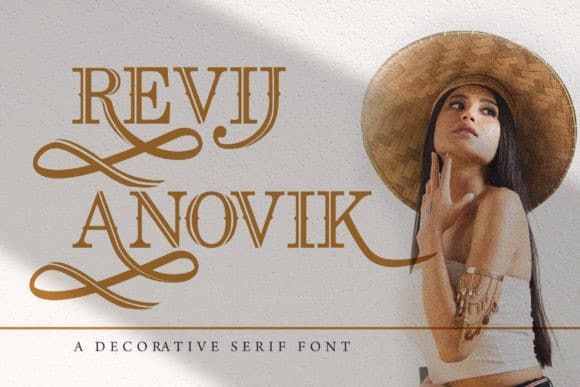
Revij Anovik Display Font
Revij Anovik Display Font is a modern display font, or a unique decorative serif font. This playfully conceptual typeface font will look truly outstanding in a wide range of contexts. perfectly suited to signature, wedding, social media, stationery, logo, typography quotes, magazine or book cover, website header, clothing, branding, packaging design and more.
This font is PUA encoded which means you can access all of the glyphs and swashes with ease! It features a varying baseline, smooth lines, gorgeous glyphs and stunning alternates.